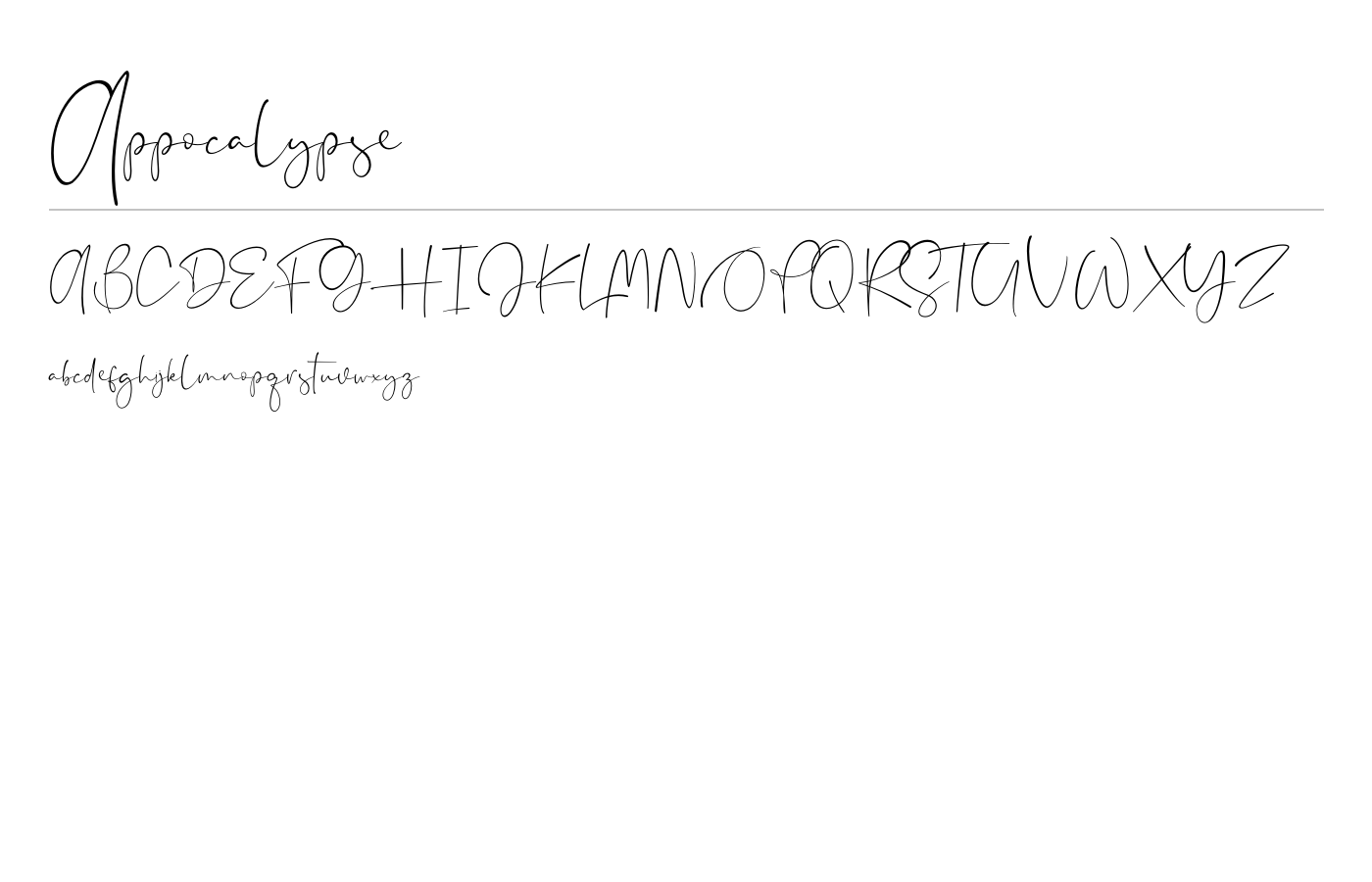
Appocalypse Font is a delicate and whimsical handwritten script with a light, airy feel characterized by thin, flowing strokes and tall, narrow letterforms. Its elegant, slightly playful style makes it a great choice for invitations, branding, and creative projects that seek a personal, artistic touch. This font works well in large sizes for headlines or logos where its unique charm can shine.
Appocalypse Font
About Appocalypse Font
| Font family | Appocalypse Font |
| Designer | Sronstudio |